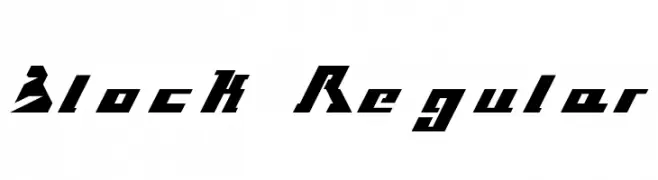
( JJASA - www.jjasa.com )
A bold, angular font with sharp edges and a modern, edgy style.
( James Fordyce )
An ornate, medieval-style font with intricate flourishes.
( James Kass - web.archive.org/web/20110108105420/code2000.net/ )
A classic serif font with balanced strokes and elegant design.
( James Key - web.archive.org/web/20010725092544/www.spd.louisville.edu/~jakey001/dween/ )
A bold, graffiti-inspired font with angular, geometric letterforms.
( Jammycreamer - www.jammycreamer.com/ )
A rough, hand-drawn font with a marker-like texture.
( PJM Homebrew Fonts - pauljmiller.wordpress.com/ )
A classic serif font with high contrast and elegant serifs.
( PJM Homebrew Fonts - pauljmiller.wordpress.com/ )
A bold, italic serif font with strong strokes and elegant slant.
( PJM Homebrew Fonts - pauljmiller.wordpress.com/ )
An elegant italic serif font with classic, flowing letterforms.
( PJM Homebrew Fonts - pauljmiller.wordpress.com/ )
A bold serif font with strong, classic lines and pronounced serifs.
( RedFive - www.behance.net/james_atkins )
The image does not depict a valid font.